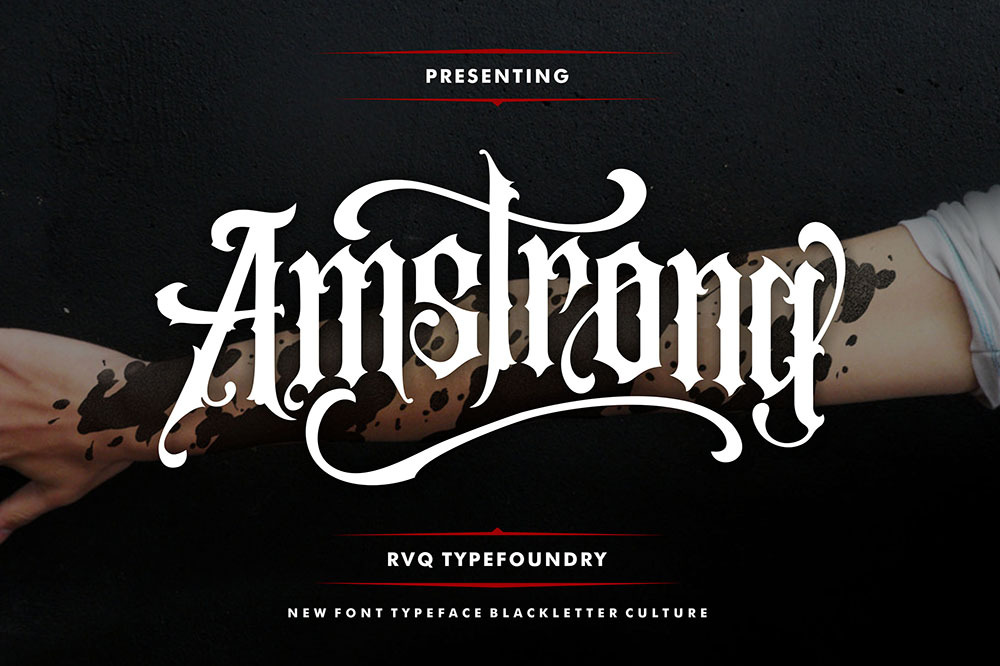
Amstrong Typeface
Amstrong typeface is new font Black letter from Rvq Typefoundry, new typeface with classy, elegant and vintage feel character set. To create the beautiful combination, just mix the uppercase and lowercase then mix with the alternative glyphs. The Amstrong typeface includes a full set of capital and lowercase letters, as well as multi-lingual support, currency figures, numerals, punctuation & some extra glyphs.
Amstrong typeface is suitable font for many creative products & designs.